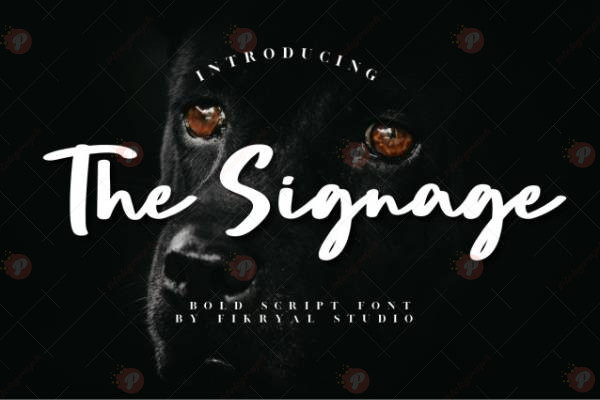
The The Signage – Bold Script Free Font is a stylish and expressive handwritten script typeface with bold strokes that bring elegance and personality to your designs. Perfect for logos, branding, packaging, posters, invitations, apparel design, and social media graphics, this font captures the charm of modern calligraphy.
Its bold script style ensures readability while maintaining a handmade, creative feel, making it an excellent choice for both professional and personal projects.
Font Style: Bold Script / Handwritten / Display Typeface